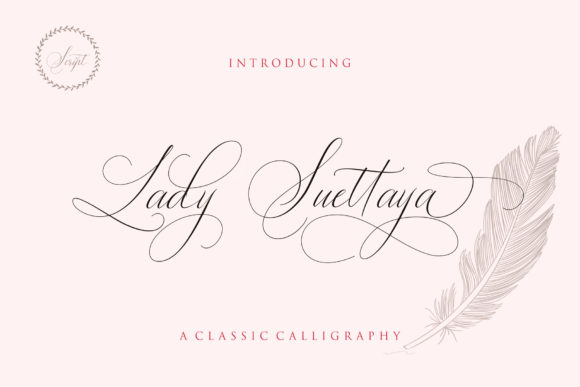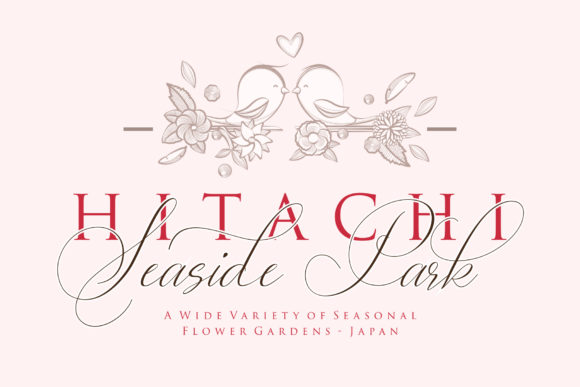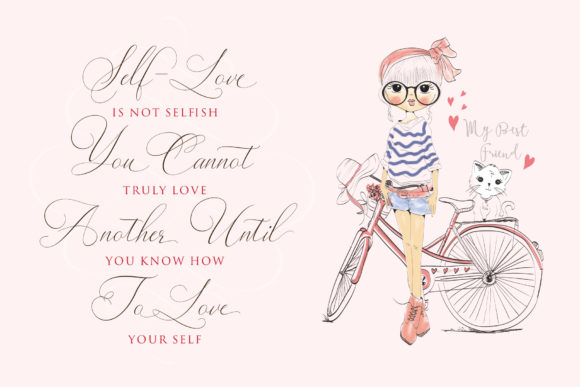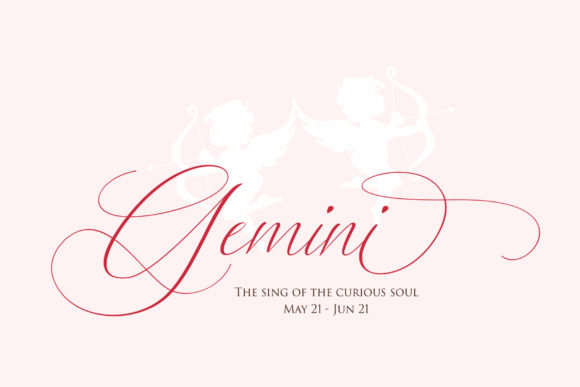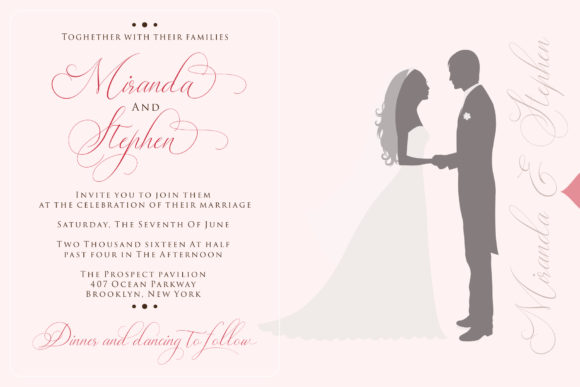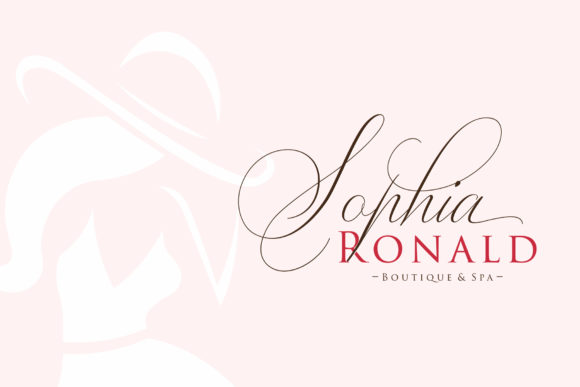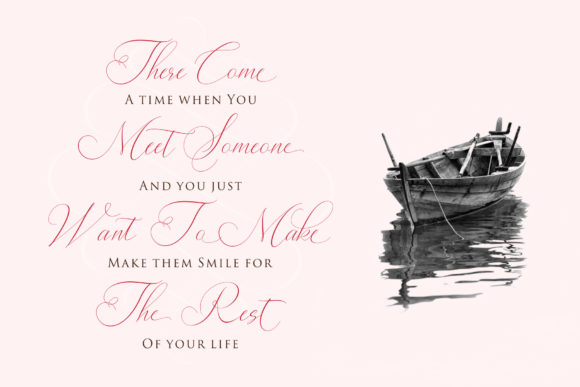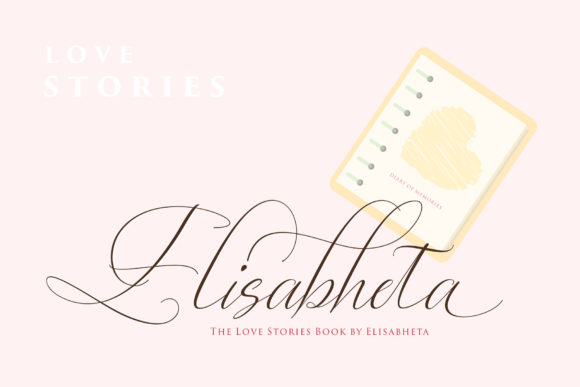
Lady Suettaya Font
About Lady Suettaya Font
The Lady Suettaya is an amazing font. It’s classy but also has modern elements, which makes it particularly suitable for wedding designs, book covers, greeting cards, logos, branding, business cards, and every other design which needs a luxurious feel.